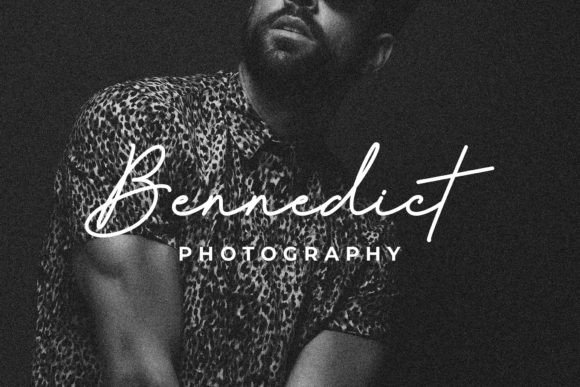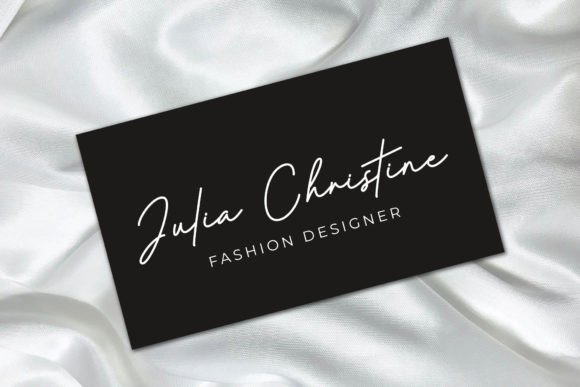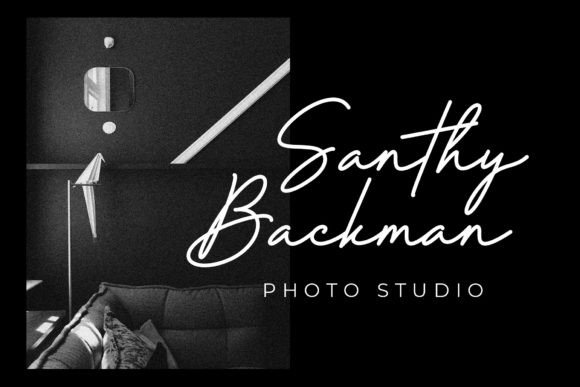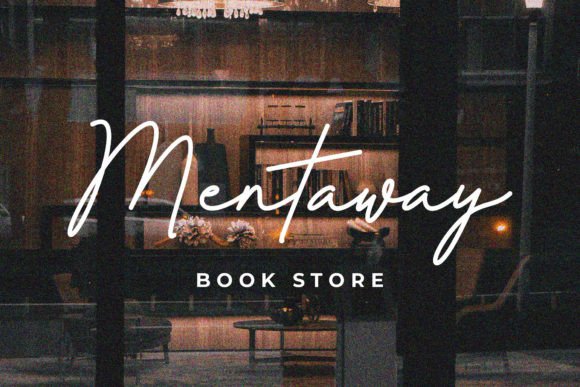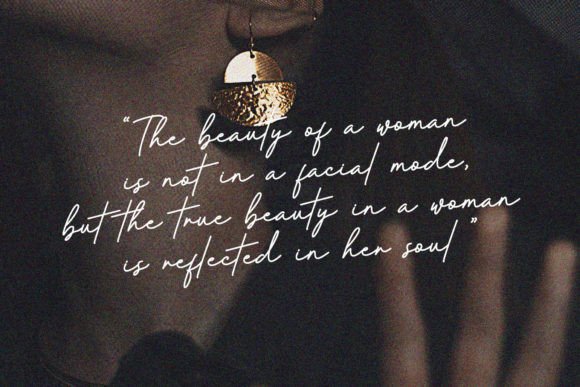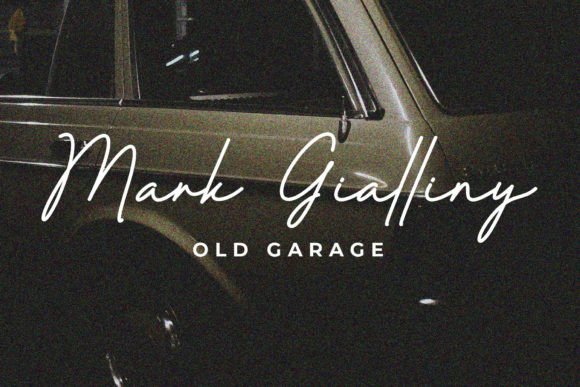
Introducing Diallome Font: The Epitome of Elegance and Sophistication
Diallome is an exquisite signature script font that has been masterfully designed to become a true favorite among designers and crafters. This stunning font maintains its classy calligraphic influences while feeling contemporary and fresh, making it the perfect addition to any project. With Diallome, you can elevate your designs to the highest levels and create something truly remarkable.
The Art of Calligraphy: A Timeless Inspiration
Calligraphy is an ancient art form that has been revered for centuries. The elegant strokes, precise lettering, and flowing connections have captivated designers and artists alike. Diallome Font takes inspiration from this timeless art form, infusing it with a modern twist to create a truly unique and sophisticated font.
What Makes Diallome Font So Special?
- Exquisite Design: Diallome Font boasts an exquisite design that exudes elegance and refinement. Each letter is carefully crafted to ensure a seamless flow, making it perfect for creating stunning headlines, titles, and signatures.
- Classy Calligraphic Influences: The font’s calligraphic influences are evident in its flowing connections and elegant strokes. This adds a touch of sophistication and luxury to any design.
- Contemporary and Fresh: Despite its classic roots, Diallome Font feels contemporary and fresh. This makes it an excellent choice for designers looking to create modern and trendy designs.
- Versatility: Diallome Font is incredibly versatile, making it suitable for a wide range of projects, from wedding invitations and branding materials to packaging and digital designs.
Why Designers and Crafters Love Diallome Font
Designers and crafters love Diallome Font for its ability to add a touch of elegance and sophistication to any project. Whether you’re creating a wedding invitation, a logo, or a social media graphic, Diallome Font is sure to impress. Its unique blend of classic and modern elements makes it a standout font that can help you differentiate your designs from the rest.
Tips for Using Diallome Font Effectively
- Pair it with a Simple Font: Pair Diallome Font with a simple, clean font to create a striking contrast that adds visual interest to your design.
- Experiment with Colors: Diallome Font looks stunning in a variety of colors. Experiment with different hues and shades to find the perfect combination for your design.
- Use it for Headlines and Titles: Diallome Font is perfect for creating stunning headlines and titles. Use it to add a touch of elegance and sophistication to your design.
Diallome Font is an exquisite signature script font that is sure to become a true favorite among designers and crafters. Its unique blend of classic calligraphic influences and modern elements makes it a standout font that can elevate any project to new heights. With its versatility, elegance, and sophistication, Diallome Font is the perfect addition to any design collection.
Get Ready to Fall in Love with Diallome Font
If you’re looking for a font that will add a touch of elegance and sophistication to your designs, look no further than Diallome Font. With its exquisite design, classy calligraphic influences, and contemporary feel, it’s sure to become your new favorite font. So why wait? Fall in love with Diallome Font today and bring your projects to the highest levels!